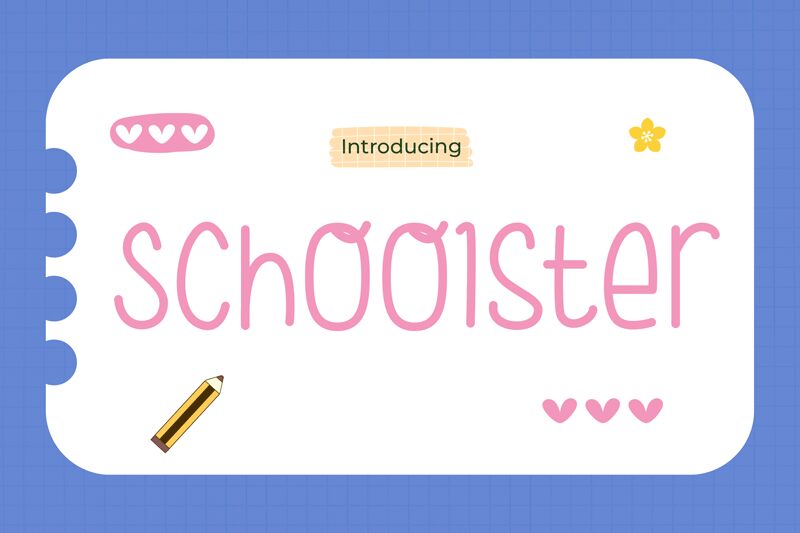
Schoolster font by Pinisiart is a handwritten free font with a casual, whimsical style. It is loose yet straightforward, informal, yet beautifully artistic. The childlike and contemporary look it offers makes it a great choice for educational themes and creative projects that require a fun, approachable look.
Schoolster, as its name indicates, is ideal for kids' materials, school-related content, and also for general non-print use. You might want to choose it for social media posts, online marketing graphics, webpages, emails, and more.